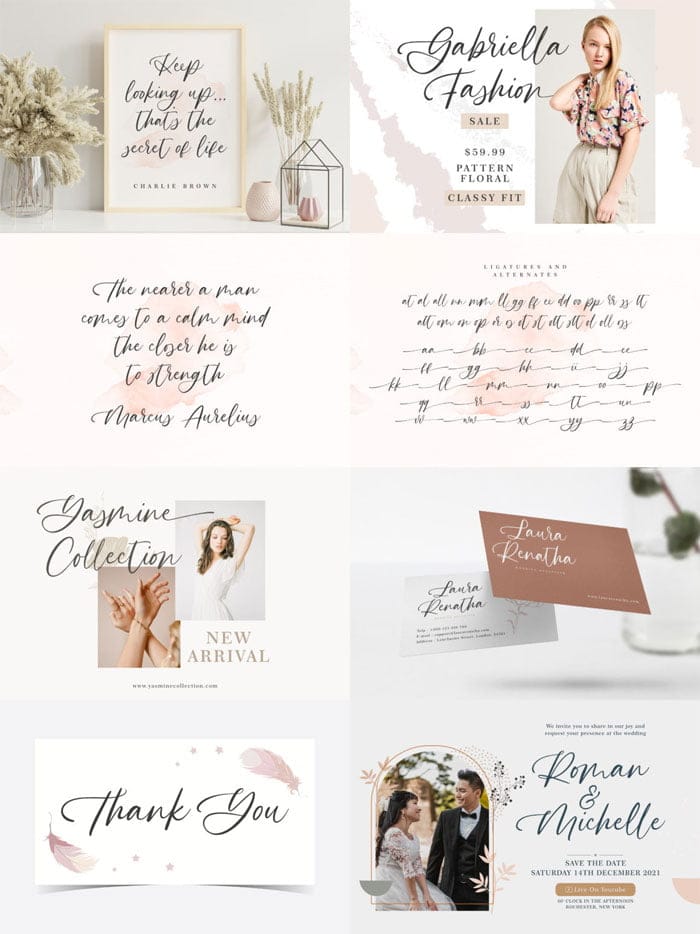
Golden Bloom Font
Golden Bloom is a chic, refined script font that emanates sophistication and elegance. Its stylish alternates and ligatures make this font the perfect match for any project. You Can Also Download 40 Golden Font 3D.